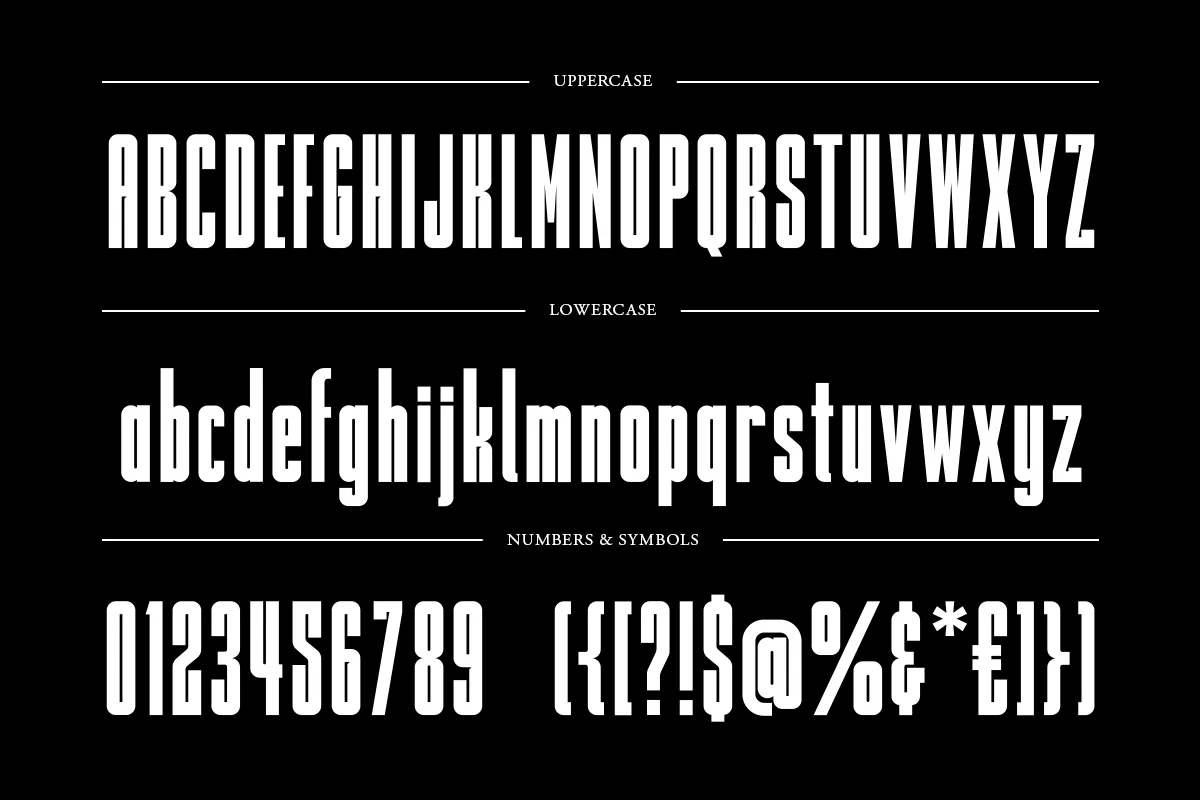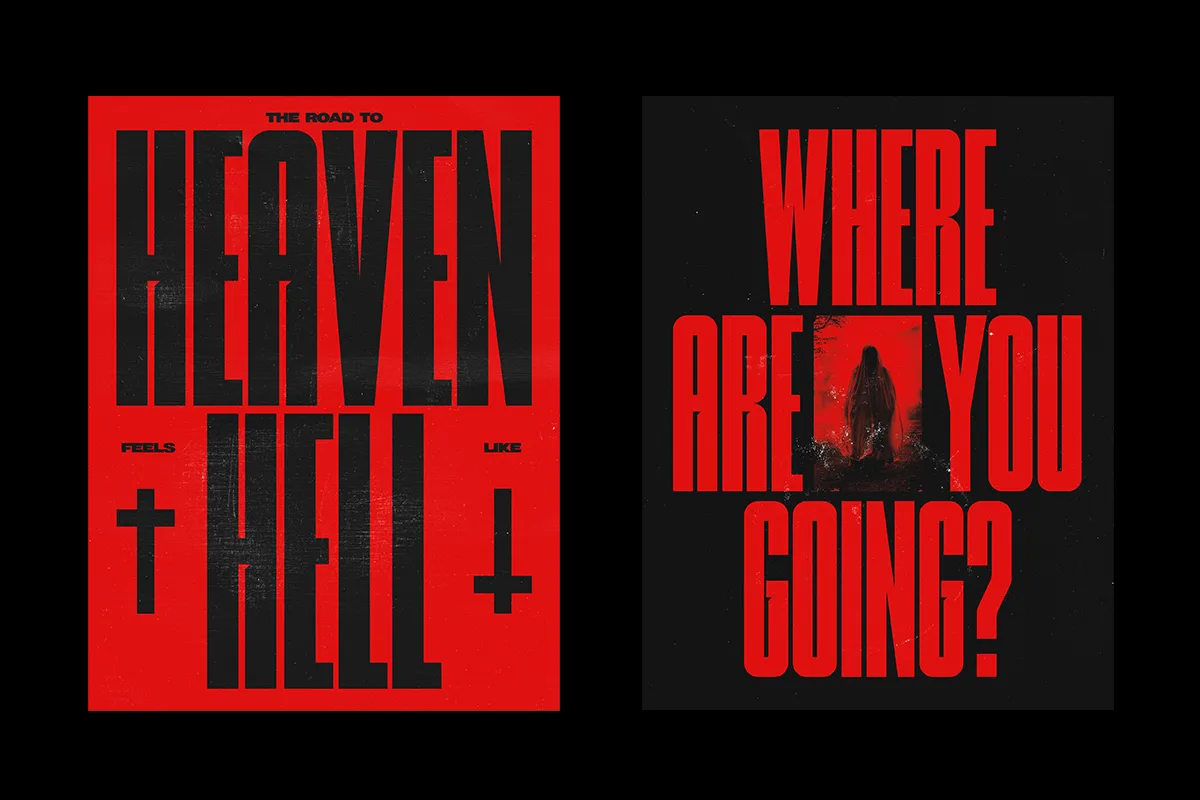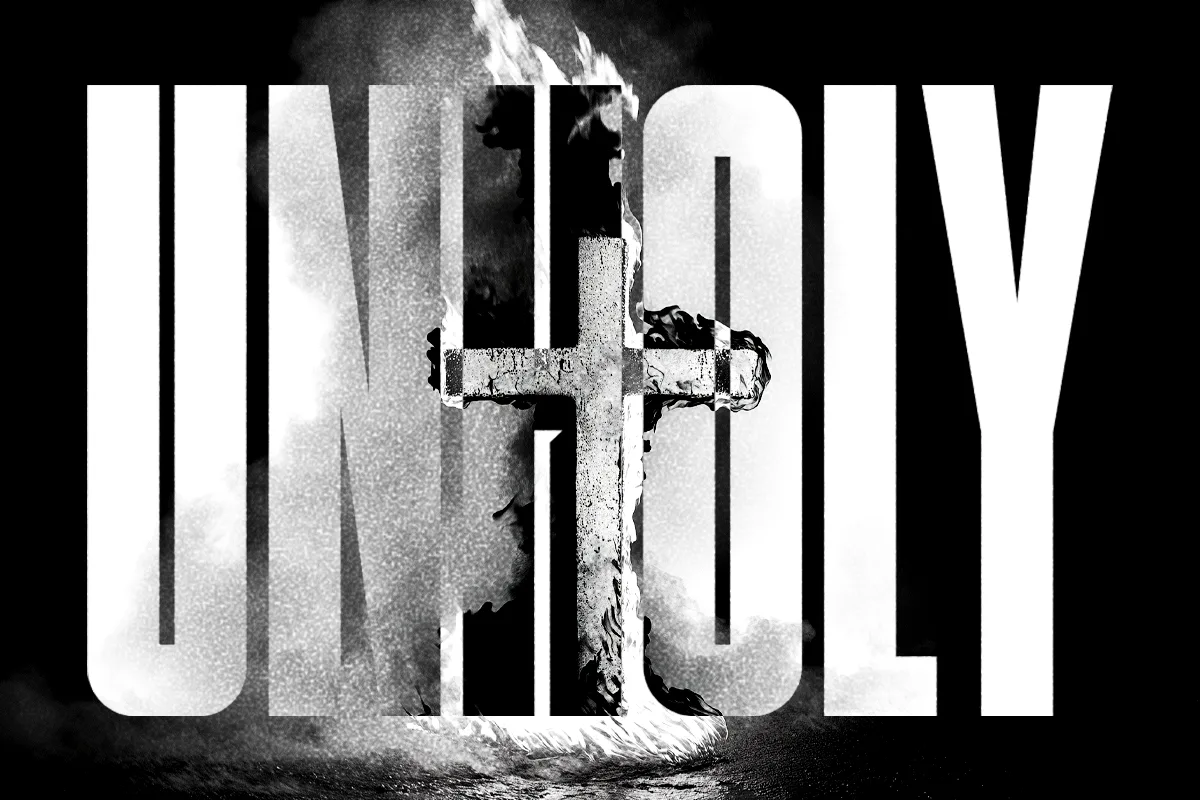
Dethrone is a modern bold condensed sans-serif font. It’s strong, bold letterforms are perfect for stand-out graphics where type needs to make a big impact. It is perfect for posters, clothing, packaging, title pages, magazines, logos and much more.
- Full upper and lowercase alphabets
- Numbers and essential symbols